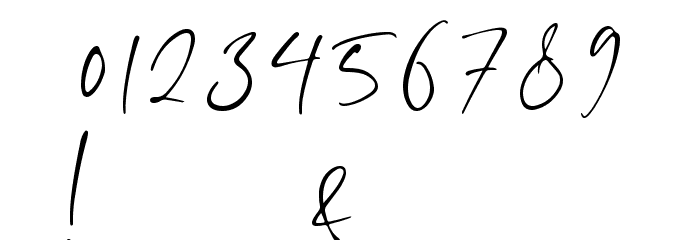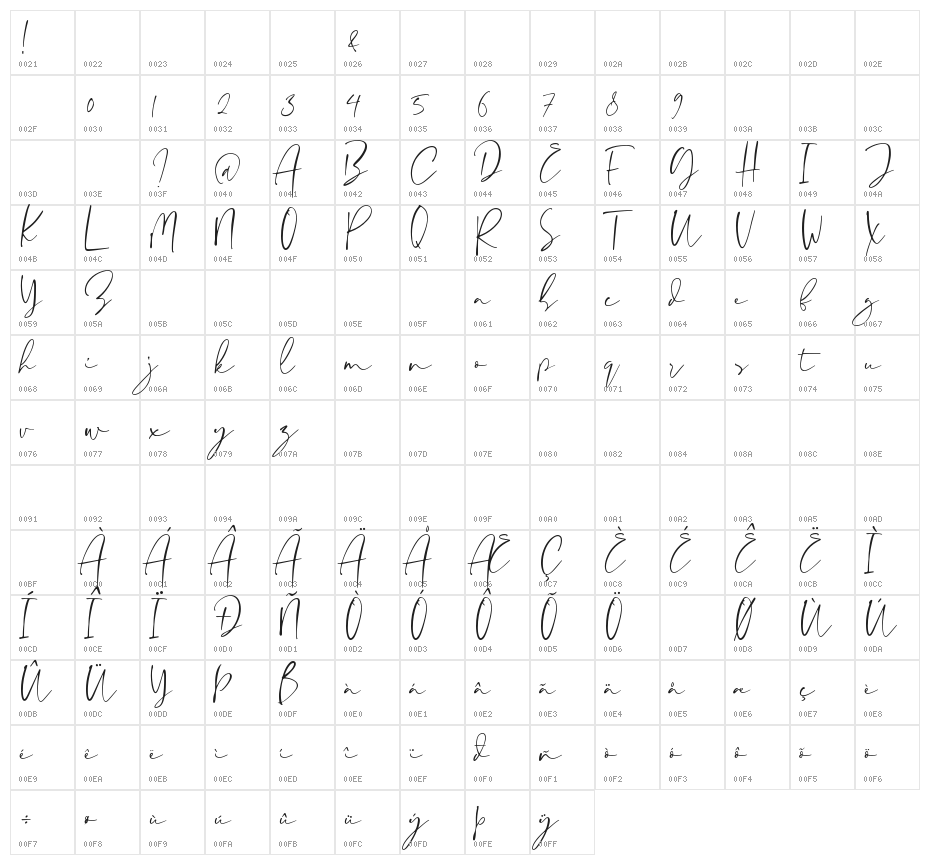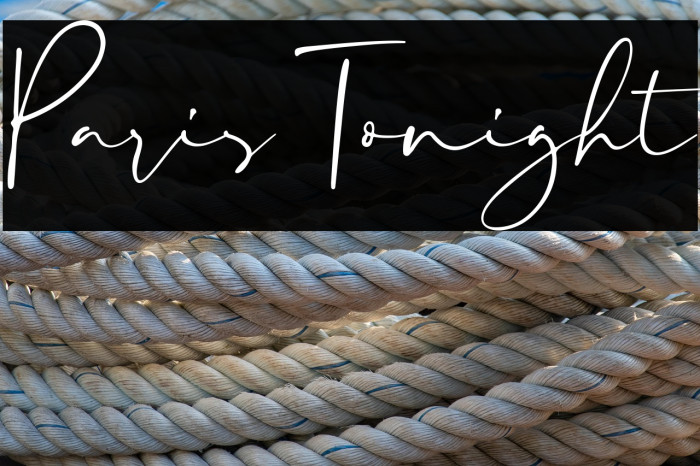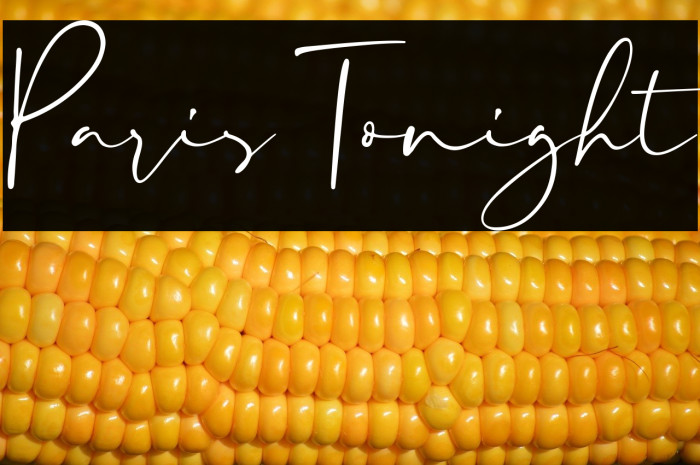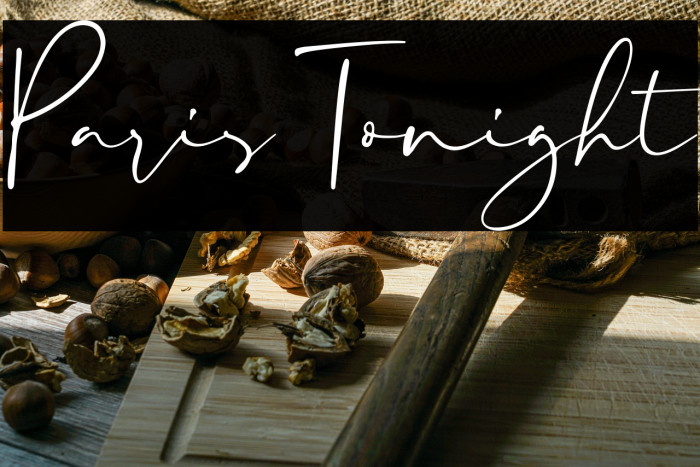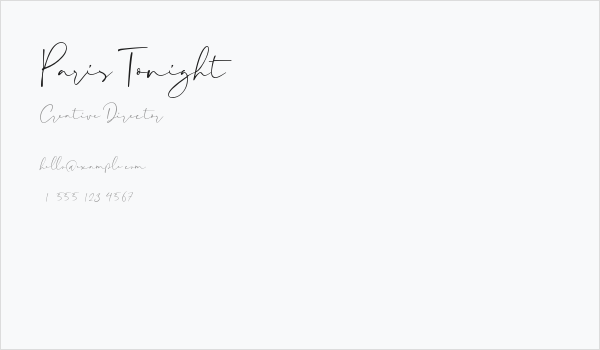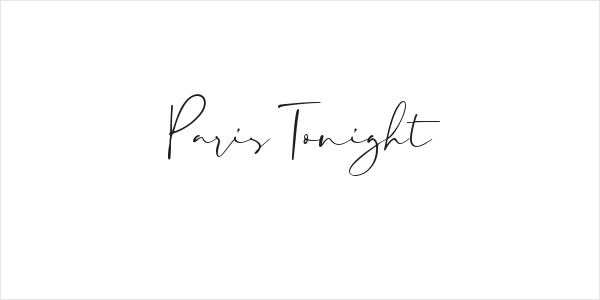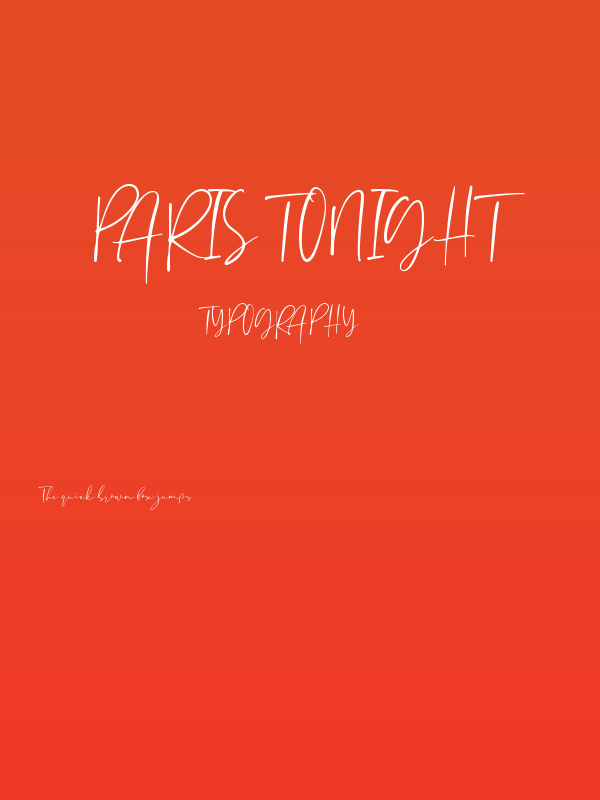
Paris Tonight Font
Paris Tonight Description
This font exudes a lively and dynamic handwritten style, characterized by its fluid and cursive strokes. The letters are elegantly connected, giving a sense of continuity and flow. The uppercase letters are bold and expressive, while the lowercase letters maintain a consistent rhythm with slightly varying heights and loops. The numerals and special characters complement the alphabet with a similar handwritten flair, adding to the overall cohesive look. The font's organic and spontaneous appearance makes it ideal for projects that require a personal touch or an artistic feel.
Use CaseLogos, Invitations, Artistic projects
Proposed ProjectsIdeal for wedding invitations, greeting cards, personal branding, and artistic projects.